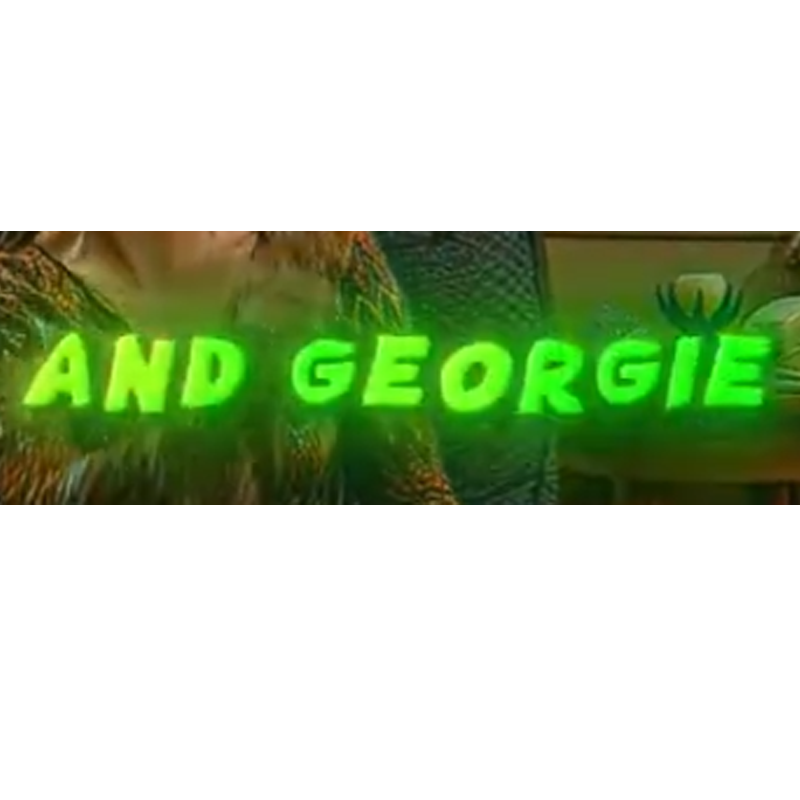
What is this font? I need this font to edit a video (I work as an editor). It's light because the glow green effect, but I don't think it makes it difficult to identify.
Hello guys, I need this font to edit a video (I work as an editor).
This font has been used to make reels, long YouTube videos and shorts.
Only a few giant channels on YouTube nowadays are using this font, I believe it is unknown to the public designer and editors in general but famous among big channels or Instagram pages
She seems to be irregular, I confess that I have been trying to look for her for a while but it has been quite a challenge
The font of this text has a glow effect green due to editing, but I believe this doesn't affect anything. I need this source to make a video and the future another videos for a client. I will leave the link attached to the video that I printed
One detail, if someone finds a font similar to the same proposal to be irregular and misaligned.
Can you tell me, I really need this font for a job
Kind of a puzzler. Have you tried contacting one (or more) of the editors that you know are using it? Maybe you know some fans of this style that could be of help? You say that it's "famous among big channels and Instagram pages" and while that absolutely may be true, I've personally never seen it before. Oh, and the glow effect definitely affects my ability to get a clear concept of the character shapes. A cleaner sample would be of great help.